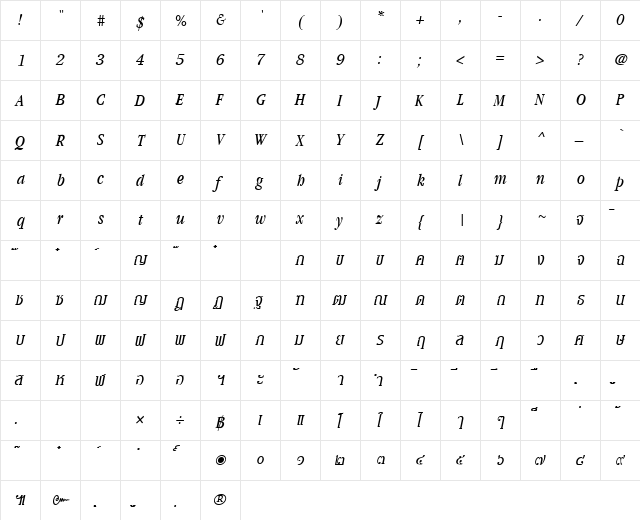
PSL-Siara Italic
Design Context for PSL-Siara Typeface
PSL-Siara offers clean, dependable letterforms without strong stylistic allegiance, making it a practical choice for designers who need flexibility. Its italic angle brings a sense of urgency and motion to the letterforms.
Pro Tip: Try PSL-Siara for annotation and caption copy alongside an upright companion — the contrast in angle creates a dynamic but ordered typographic system.